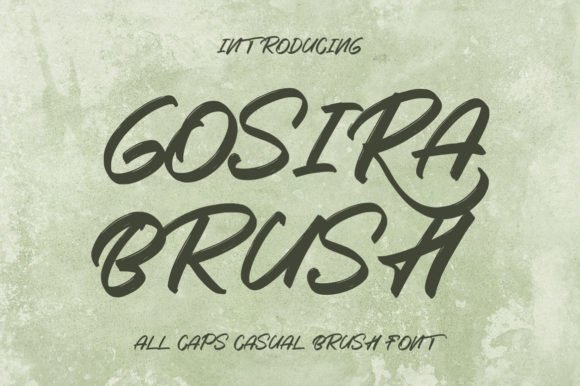
The Perfect Brush Stroke: Unlocking the Power of Gosira Brush Font
Do you remember the thrill of holding a brush pen for the first time and letting your creativity flow onto the paper? The feeling of freedom and expression is what drives many of us to pursue our passion for design. For designers, finding the right font can be the key to unlocking that creative spark and elevating our projects to the next level.
That’s where Gosira Brush Font comes in – a casual, fun display font that’s perfect for adding a personal touch to your logos, branding, social media, and crafty DIY projects. Created with a brush pen, this font is clean, quirky, and full of character. With Gosira Brush Font, you’ll be able to add a unique touch to your designs that sets them apart from the rest.
Whether you’re a seasoned designer or just starting out, Gosira Brush Font is a valuable addition to your toolkit. Its versatility and playfulness make it a great choice for a wide range of projects, from bold logos to whimsical illustrations.
Gosira Brush Font Key Features
- Unique Brush Stroke Effect: Gosira Brush Font features a unique brush stroke effect that gives it a hand-painted look, adding a touch of personality to any design.
- High-Quality Glyphs: The font includes high-quality glyphs that are carefully crafted to ensure seamless integration with other fonts and design elements.
- Multi-Language Support: Gosira Brush Font supports a wide range of languages, including Latin, Cyrillic, and Greek alphabets, making it a versatile choice for designers and typographers.
Gosira Brush Font Review
I recently had the chance to work with the Gosira Brush Font, and I’m excited to share my honest thoughts. ✨ The font has a unique, hand-drawn feel that can add a touch of personality to any design. I particularly love how it pairs well with bold, modern fonts to create an interesting contrast.
One of the standout features of Gosira Brush Font is its versatility. ✨ It can be used for a wide range of projects, from logos and branding to digital products and print materials. The font also comes in a variety of weights, making it easy to customize the look and feel to suit your needs.
While Gosira Brush Font is a great addition to any design toolkit, there are a few limitations to consider. ⚠️ For one, the font may not be the best choice for projects that require a high level of precision or clarity. The hand-drawn feel can sometimes make the text look fuzzy or difficult to read.
Overall, I’m impressed with the Gosira Brush Font. It’s a great choice for designers looking to add some personality to their projects. While it may not be the best fit for every project, it’s definitely worth considering for those that require a unique, hand-drawn look.
- Unique, hand-drawn feel
- Versatile and suitable for a wide range of projects
- Available in various weights
- May not be suitable for projects requiring high precision or clarity
Tips for Getting the Most Out of Gosira Brush Font
Experiment with different font sizes, colors, and styles to achieve the desired look.
Use the font in combination with other design elements to create a unique and eye-catching design.
Consider using the font for headings, titles, and other emphasis elements to draw attention to important information.
The Gosira Brush Font is ideal for: